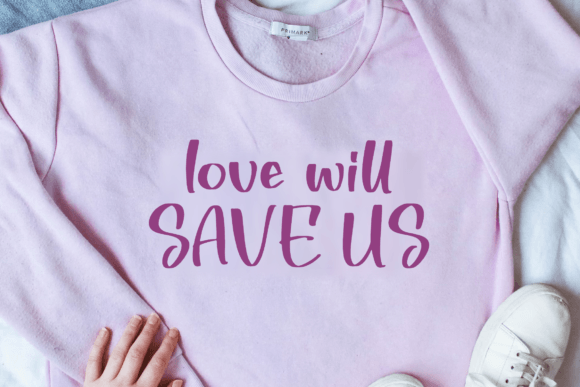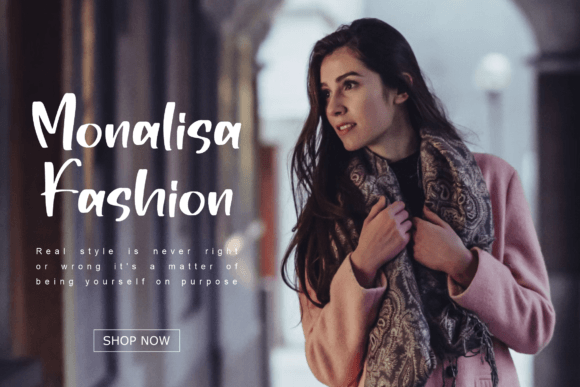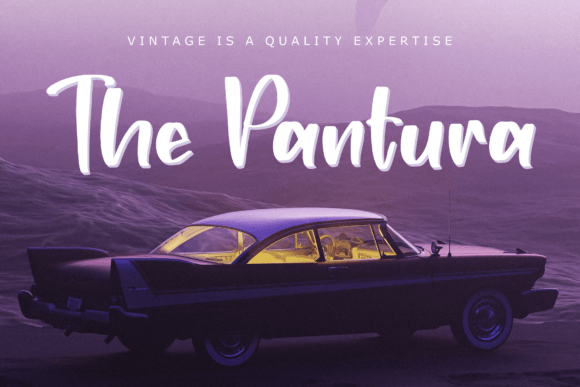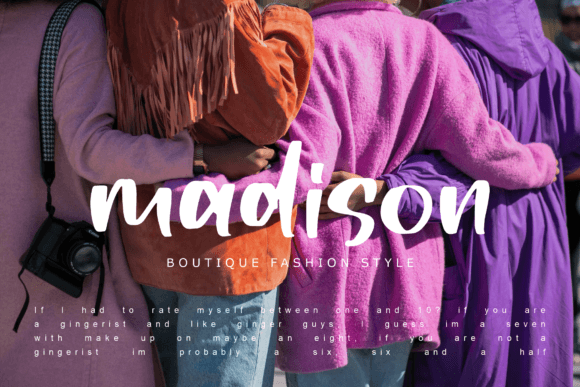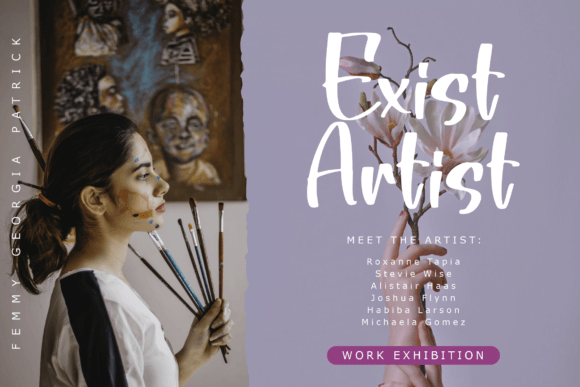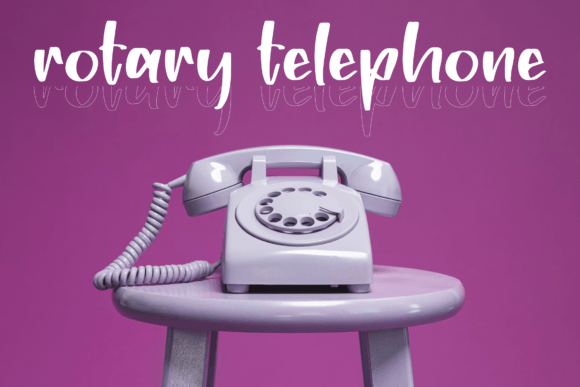
Introduction to Kashtille Vicstars Font Font
Fonts play a crucial role in design, and the Kashtille Vicstars Font font is a typeface that brings both character and versatility to any project. Whether you’re working on a branding project, a website, or a print design, the Kashtille Vicstars Font font offers a unique style that can elevate your work.
Kashtille Vicstars – Bold Handwritten Font suitable for any projects such as logos, branding projects, homeware designs, product packaging, mugs, quotes, posters, shopping bags, t-shirts, book covers, name cards, invitation cards, greeting cards, labels, photography, watermark, special events, and all your other lovely projects that need a beautiful script taste.
Kashtille Vicstars – Bold Handwritten Font suitable for any projects such as logos, branding projects, homeware designs, product packaging, mugs, quotes, posters, shopping bags, t-shirts, book covers,
Key Features of Kashtille Vicstars Font Font
Why Choose Kashtille Vicstars Font Font?
The Kashtille Vicstars Font font is more than just a typeface – it’s a design tool that helps you communicate your message with style and clarity. Its unique character set and versatile design make it suitable for a wide range of applications, from elegant invitations to bold headlines.
With its carefully crafted letterforms and balanced proportions, the Kashtille Vicstars Font font ensures readability and visual appeal across all mediums.
What makes Kashtille Vicstars Font font special?
The Kashtille Vicstars Font font stands out with its unique design, exceptional readability, and versatility across various design applications.